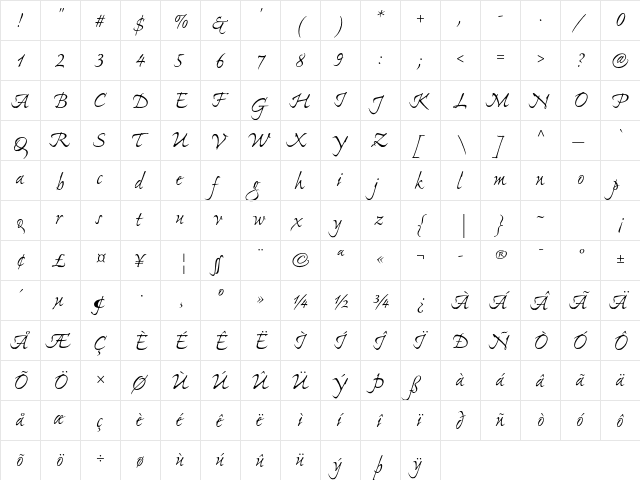
Ex Ponto Pro Regular Font Preview
Ex Ponto Pro Regular
Ex Ponto Pro Regular Font Details
| Designer | Jovica Veljovic |
Design Context for Ex Ponto Pro Typeface
Ex Ponto Pro takes a measured approach to typography — its balanced proportions and neutral character make it a reliable workhorse for both digital and print work.